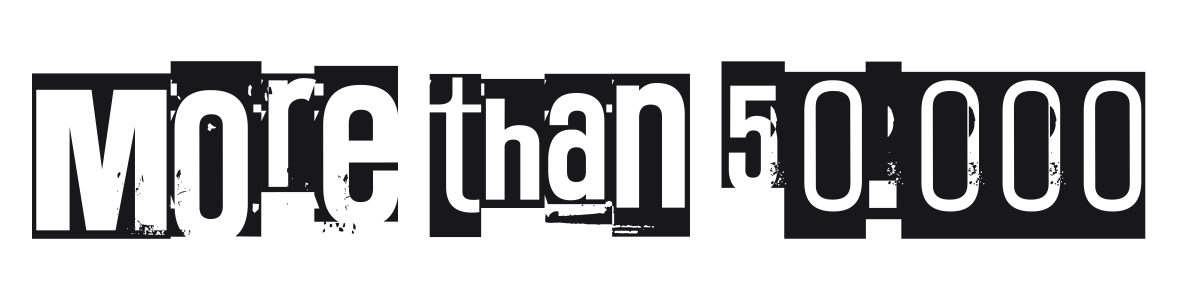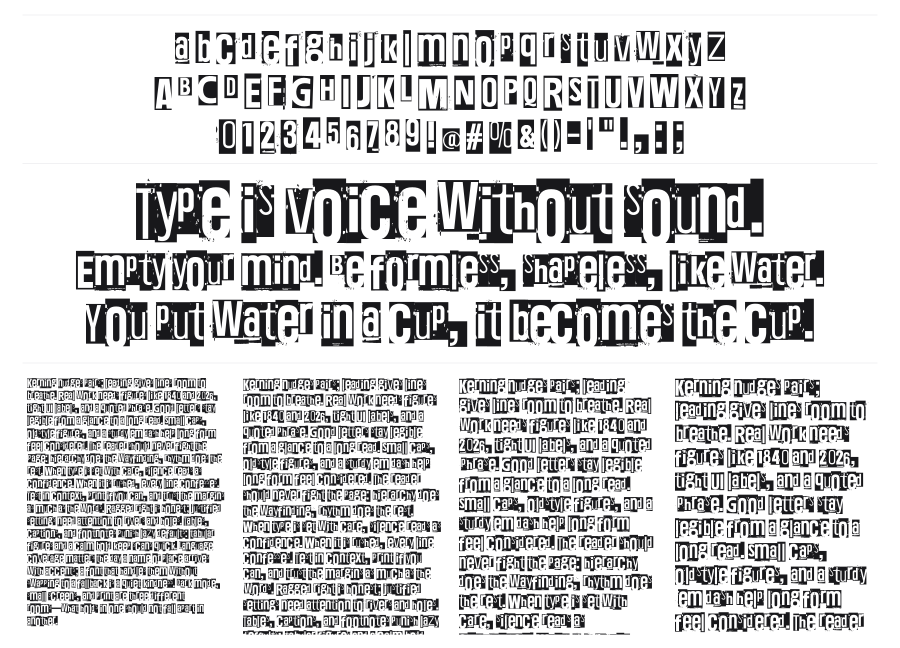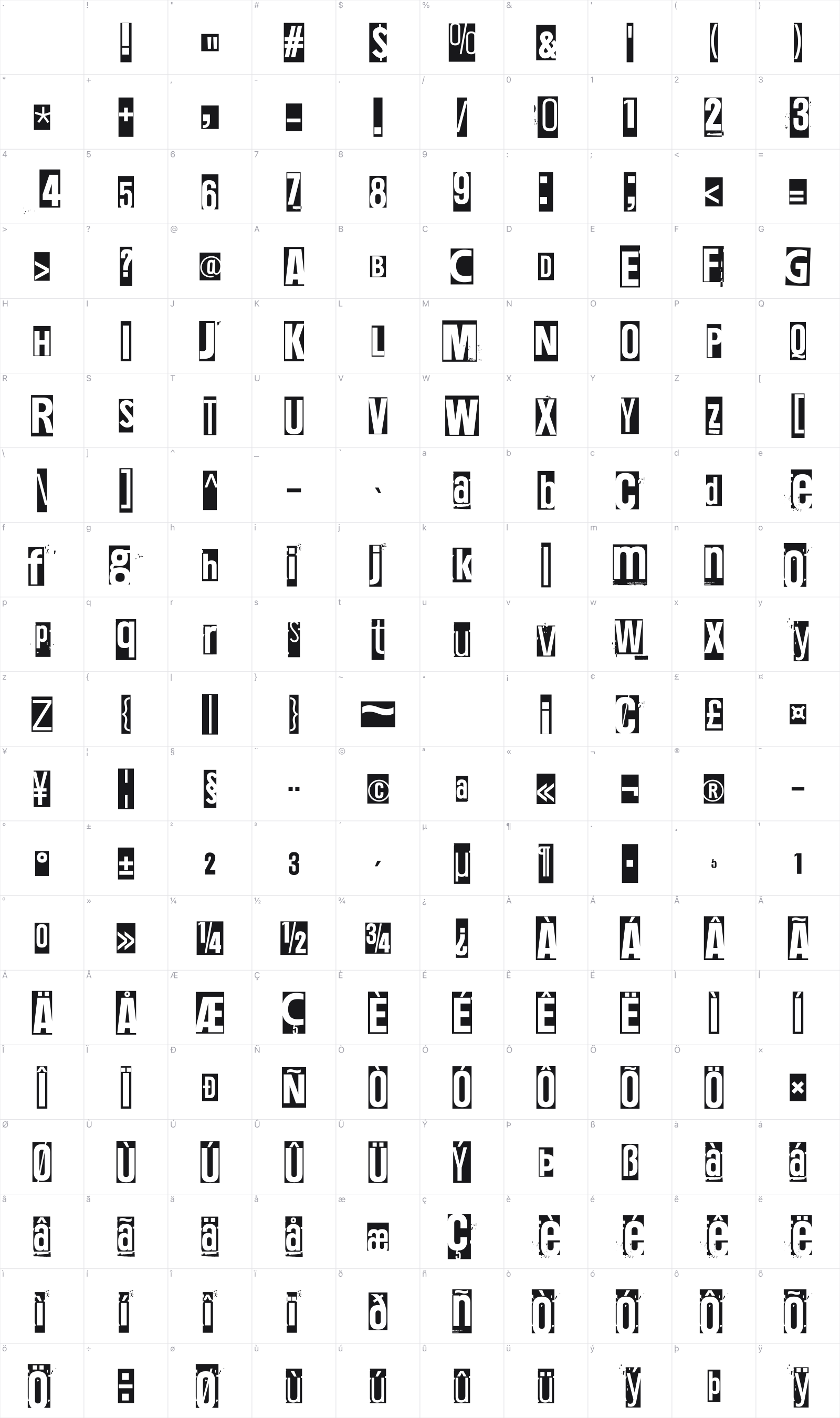
More than 50.000
More than 50.000 is a ransom-note collage font by junkohanhero that stacks characters of wildly different sizes, weights, and baseline positions to simulate letters clipped from magazines and newspapers. Heavy distressing and ink erosion on each character deepen the cut-and-paste illusion. It reads loud, chaotic, and confrontational from a distance, which is exactly the point.